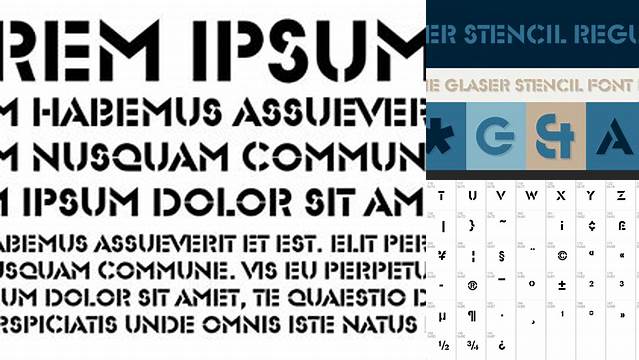
What is Glaser Stencil Regular Font?
Glaser Stencil Regular is a typeface that exudes a unique blend of modernism and classic stencil design. Inspired by the legendary designer Milton Glaser, this font carries a legacy of innovative and impactful design. Its distinct stencil cuts give it a raw, industrial feel while maintaining a level of elegance and sophistication. The regular weight makes it incredibly versatile, suitable for a wide range of applications from headlines to body text. Its clean lines and balanced proportions ensure readability while the stencil effect adds a touch of character and flair. This font is not just a typeface; it's a statement. It embodies the spirit of creativity and forward-thinking design, making it a favorite among designers who want to add a distinctive edge to their work. Whether you’re working on branding, posters, editorial design, or web layouts, Glaser Stencil Regular can elevate your project with its unique aesthetic. It's a font that stands out, capturing attention and leaving a lasting impression. The beauty of Glaser Stencil Regular lies in its ability to be both eye-catching and functional, making it an invaluable asset to any designer's toolkit. This font allows designers to create visuals that are not only visually appealing but also deeply rooted in design history.
History and Inspiration Behind Glaser Stencil
The history of the Glaser Stencil is deeply rooted in the legacy of Milton Glaser, a design icon known for his eclectic style and groundbreaking contributions to the field of graphic design. Glaser, a visionary, drew inspiration from various sources, including art deco, Swiss modernism, and psychedelic art, blending them into a unique design language. His stencil fonts reflect this diverse influence, combining the mechanical precision of stenciling with artistic flair. The Glaser Stencil font family is a testament to his innovative spirit, capturing the essence of his design philosophy. It's a design that speaks volumes about his ability to synthesize disparate elements into a cohesive and compelling visual narrative. Glaser's work often challenged conventional norms, and his stencil fonts were no exception. They represented a departure from traditional typography, offering a fresh perspective on letterforms. This font stands as a symbol of his creativity and relentless pursuit of originality. When using Glaser Stencil, you are not just using a font; you are incorporating a piece of design history into your work, honoring the legacy of a true master. The font embodies the spirit of experimentation and pushing boundaries, encouraging designers to think outside the box and explore new possibilities. Its timeless appeal ensures that it remains relevant and impactful, continuing to inspire generations of designers to come. Milton Glaser’s stencil fonts are a powerful reminder of the importance of innovation and the enduring influence of great design.
Key Characteristics of the Font
When we talk about Glaser Stencil Regular font, several key characteristics set it apart. First and foremost, its stencil design is the most defining feature. The breaks in the letterforms give it a distinctive, somewhat industrial, and artistic appearance. The regular weight ensures that it remains legible and versatile, making it suitable for both display and body text applications. The letterforms are carefully balanced, with consistent stroke widths and proportions, contributing to its overall harmony and readability. The font possesses a certain elegance despite its rugged stencil aesthetic, making it adaptable to a wide range of design styles. It exudes a timeless quality that allows it to fit seamlessly into both vintage and modern designs. Its clean lines and geometric structure make it easy to pair with other fonts, giving designers flexibility in creating unique typographic compositions. The font is designed to be impactful, drawing the viewer's eye and creating a memorable impression. Whether used in headlines, logos, or branding materials, it adds a touch of sophistication and creativity. The spaces created by the stencil cuts also add a visual rhythm to the text, enhancing its aesthetic appeal. Furthermore, the font retains its clarity even at smaller sizes, making it practical for various design applications. Glaser Stencil Regular's characteristics combine to make it a truly unique and versatile typeface that can elevate any design project.
How to Use Glaser Stencil Regular in Your Projects
Using Glaser Stencil Regular effectively in your design projects can elevate your work and give it a distinctive edge. This font is incredibly versatile and can be used in various applications, from branding to editorial design. When using this font, consider its visual impact and how it interacts with other elements in your design. For headlines and titles, Glaser Stencil Regular can make a bold statement, capturing the viewer's attention. Its stencil design adds a unique texture and character that can enhance the overall aesthetic. In branding, this font can convey a sense of modernity, creativity, and sophistication, making it ideal for businesses that want to stand out. It works well in logos, business cards, and marketing materials. In editorial design, Glaser Stencil Regular can be used to create visually striking layouts, adding a touch of elegance and visual interest to articles and magazines. Pairing it with a clean and simple sans-serif font can create a balanced and harmonious typographic composition. When using it in body text, ensure that the font size is large enough to maintain readability. The stencil cuts can sometimes make smaller text difficult to read, so careful consideration is needed. Experiment with different weights and styles to find the perfect balance. This font can also be used in web design to add a unique touch to websites and online interfaces. It works well in headers, navigation menus, and call-to-action buttons. Remember to optimize the font for web use to ensure fast loading times and optimal display across different devices. Glaser Stencil Regular is a powerful tool that can transform your design projects, adding a touch of creativity and sophistication. By understanding its characteristics and how to use it effectively, you can create visually stunning designs that leave a lasting impression.
Tips for Pairing Glaser Stencil Regular with Other Fonts
Pairing Glaser Stencil Regular with other fonts can create visually appealing and balanced designs. Given its distinctive stencil design, it's crucial to choose fonts that complement rather than compete with its unique aesthetic. A general rule of thumb is to pair it with clean and simple sans-serif fonts. These fonts provide a contrast to the textured look of Glaser Stencil Regular, creating a harmonious balance. Some excellent sans-serif options include Helvetica, Arial, and Open Sans. These fonts are highly legible and won't overshadow the stencil's character. When pairing fonts, consider the hierarchy of your design. Use Glaser Stencil Regular for headlines and titles to draw attention, and use the sans-serif font for body text to ensure readability. Another approach is to pair it with a classic serif font like Times New Roman or Garamond. This combination can create a sophisticated and timeless look, blending the modernity of the stencil with the tradition of the serif. However, be cautious when using serif fonts, as some may clash with the stencil's aesthetic. Experiment with different font weights and sizes to find the perfect balance. Using different weights of the same font family can also create visual interest. For example, you can pair Glaser Stencil Regular with a light or bold version of a sans-serif font to create a subtle contrast. Consider the overall tone and style of your design when choosing fonts. If you're aiming for a modern and minimalist look, stick with clean sans-serif fonts. If you want a more classic and elegant feel, try pairing it with a traditional serif font. Ultimately, the key is to experiment and trust your eye. Try out different combinations and see what works best for your design. By carefully selecting and pairing fonts, you can create visually stunning designs that effectively communicate your message.
So there you have it, folks! Glaser Stencil Regular font is an awesome choice for adding a unique touch to your design projects. While finding a free download might take a little digging, the effort is well worth it. Remember to always prioritize legal and safe sources when downloading fonts. And with the tips and tricks we've discussed, you're now well-equipped to use this font effectively in your designs. Go ahead, unleash your creativity, and make your projects stand out with Glaser Stencil Regular! Happy designing!